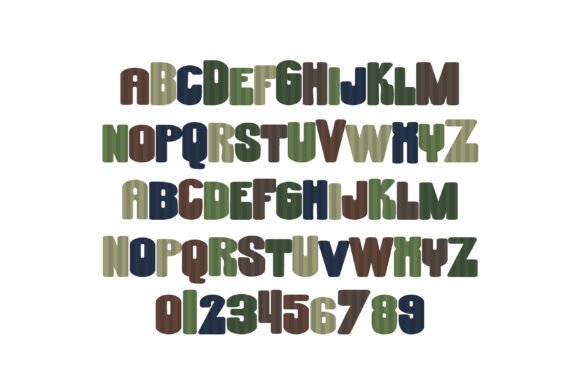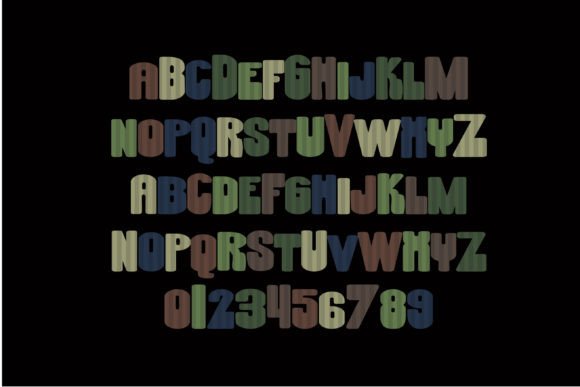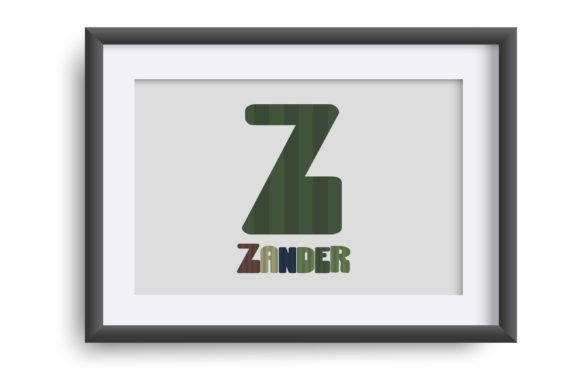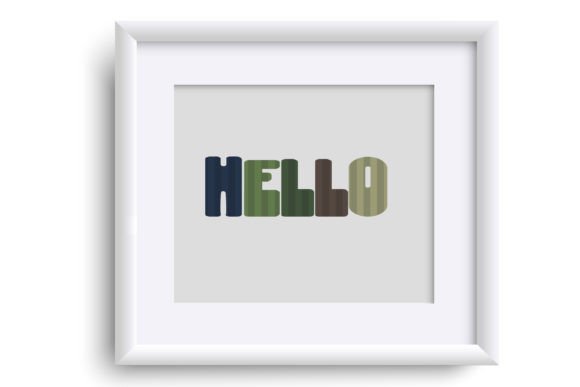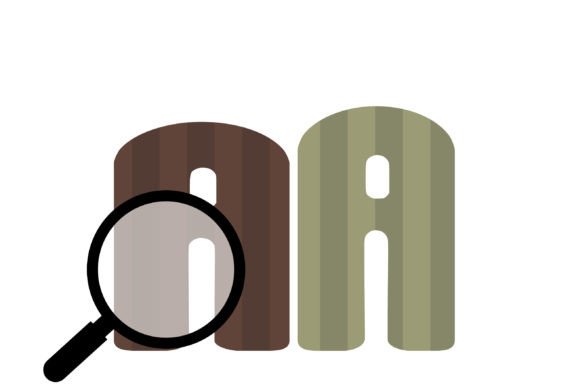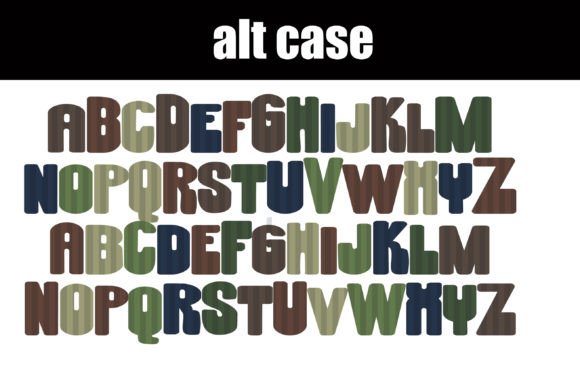
Introduction to Military Striper Font
Have you ever stared at a blank design canvas, desperately seeking the perfect font to bring your creative project to life? I know I have. It’s that moment when you’re searching for a high-quality font that exudes personality, and you stumble upon something truly unique – the Military Striper Font. This stunning font features bold, striped lettering in a military color palette that’s sure to add a touch of sophistication to any design.
But what sets the Military Striper Font apart from other design resources is its versatility. With an alternate version of each letter in a different color, you can mix and match to create a truly one-of-a-kind design. Whether you’re working on a free download or a paid project, this font is a valuable addition to any designer’s toolkit. And with its transparent background, you can easily layer it over other design elements to create a truly unique look.
Key Features of Military Striper Font
- High-quality design resource perfect for creative projects requiring a bold, attention-grabbing aesthetic.
- Unique, bold design makes it ideal for use in military-themed projects, patriotic events, or any application requiring a striking visual impact.
- Designed to be versatile, the Military Striper Font can be used in a variety of creative projects, from print materials to digital displays.
Honest Review: Military Striper Font
I recently came across the Military Striper Font and was excited to give it a try in my latest creative project. As a designer, I’m always on the lookout for high-quality design resources that can elevate my work. In this review, I’ll share my honest thoughts on this font.
What works well: ✨ The Military Striper Font has a unique and striking design that’s perfect for adding a touch of military flair to your projects. The transparent background makes it easy to use with any color scheme, and the free download is a definite bonus. I appreciate how versatile this font is, and it’s a great addition to any design library.
What doesn’t work well: ⚠️ While the font itself is great, I do wish it had more character variations to choose from. Having more options would make it even more useful for designers. Additionally, some users may find the font’s bold style a bit overwhelming, so be sure to use it sparingly.
Overall impression: I’m really impressed with the Military Striper Font, and I think it’s a great resource for designers looking to add some edge to their work. It’s a high-quality design resource that’s free to download, making it an excellent choice for any creative project.
- Unique and striking design
- Great for adding a touch of military flair
Common Use Cases for Military Striper Font
Military Striper Font is a versatile design resource that can be used in a variety of creative projects, including military-themed designs, patriotic designs, and sports designs.